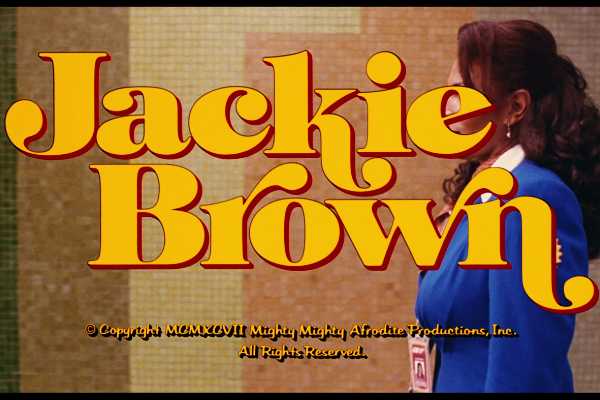
Hip and happening, far out and very cool - these are just some of the adjectives used to describe the 70's. There is no other decade that can compare to the 1970s. The years between 1970 to 1979 brought us punk, disco, bell bottoms, Star Wars, Abba, Concorde, lava lamps, vinyl records, The Brady Bunch and a plethora of dodgy hairstyles and clothes. It was a time when the Vietnam War ended and the battle of the sexes began. For many people, it was quite simply the time of their lives.